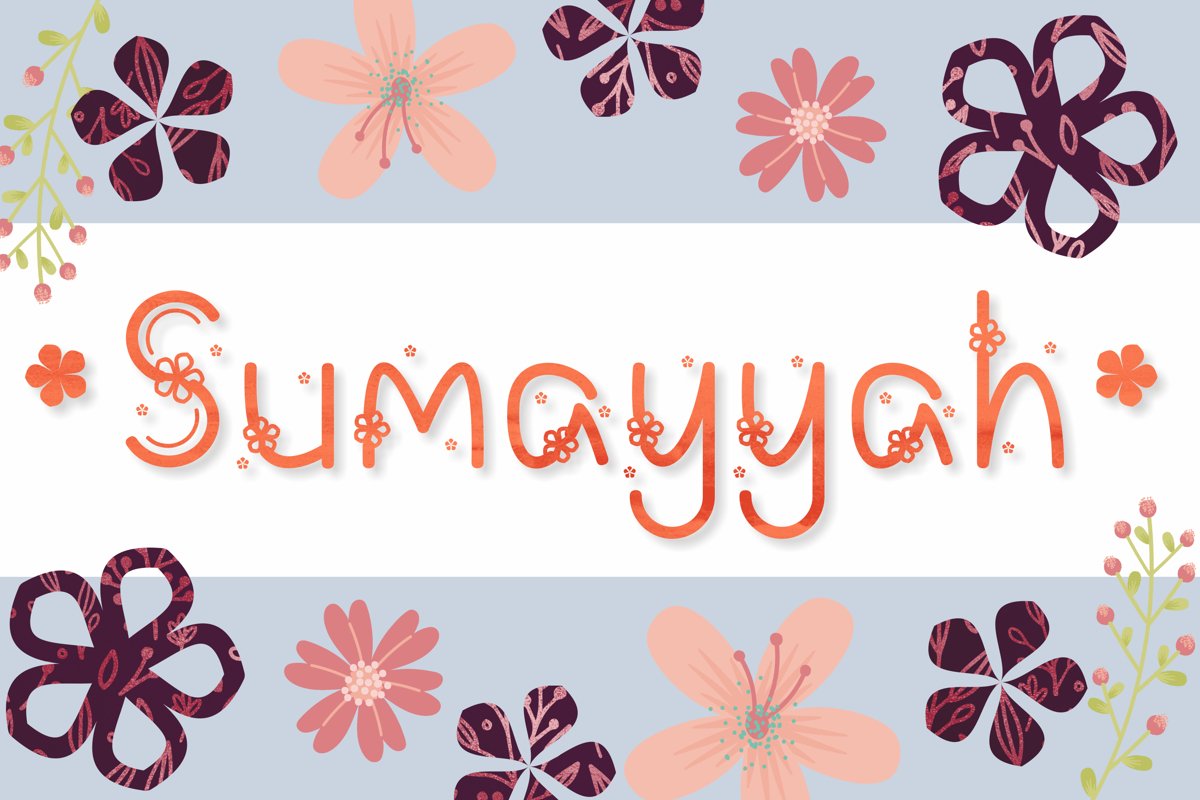
Proudly Present, Sumayyah Font.
Sumayyah is a stylish and cute decorative font. It features Floral-themed characters that will add an incredibly joyful touch to your projects. Use this amazing font for a wide range of crafty ideas, from letterheads and titles, to stationery, and elevate your projects to the highest level!